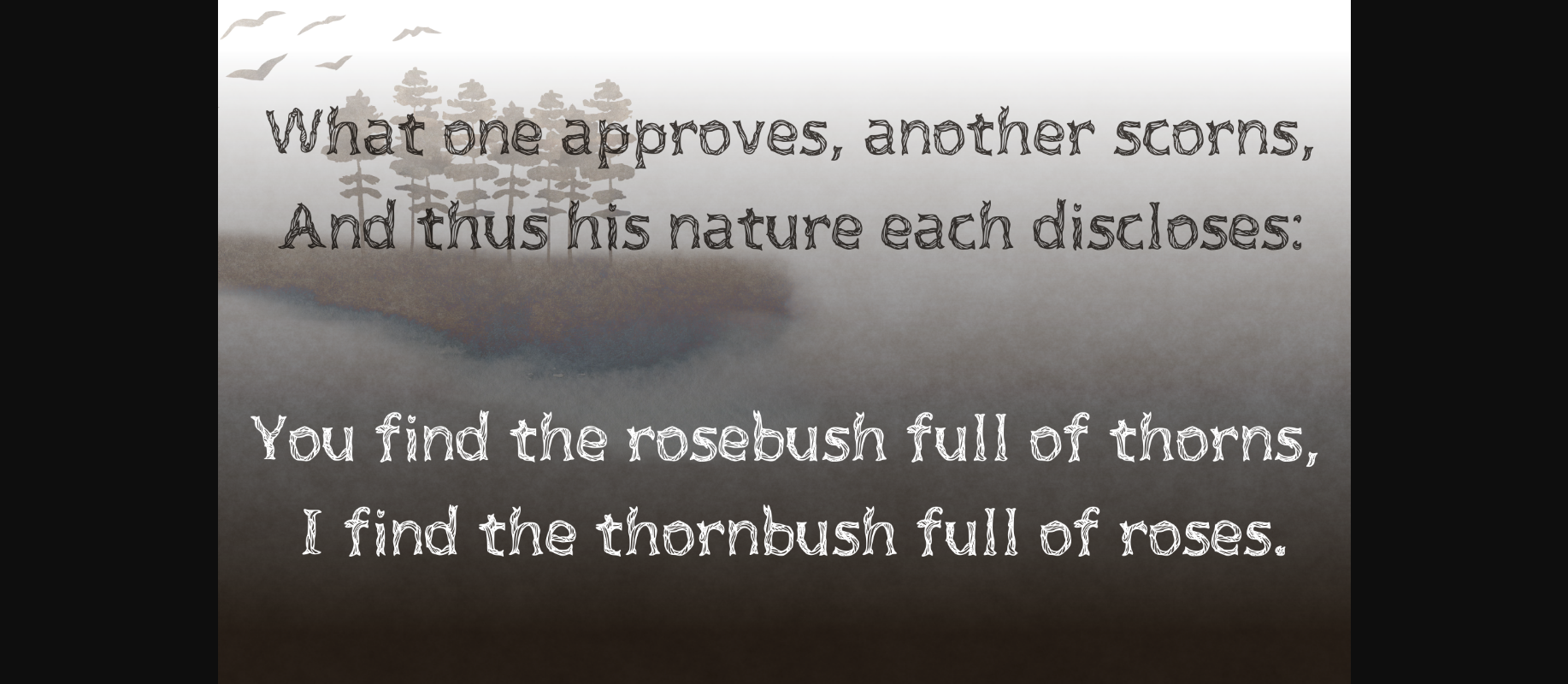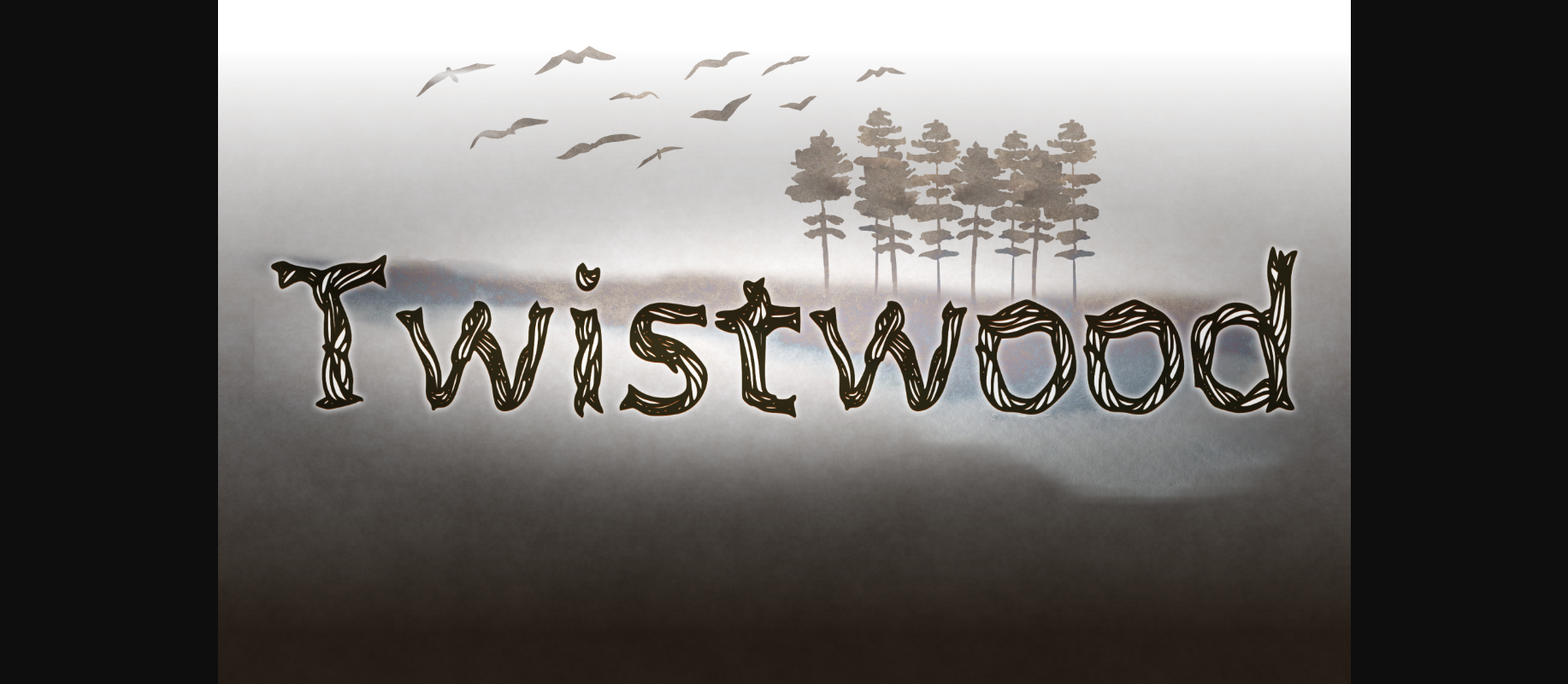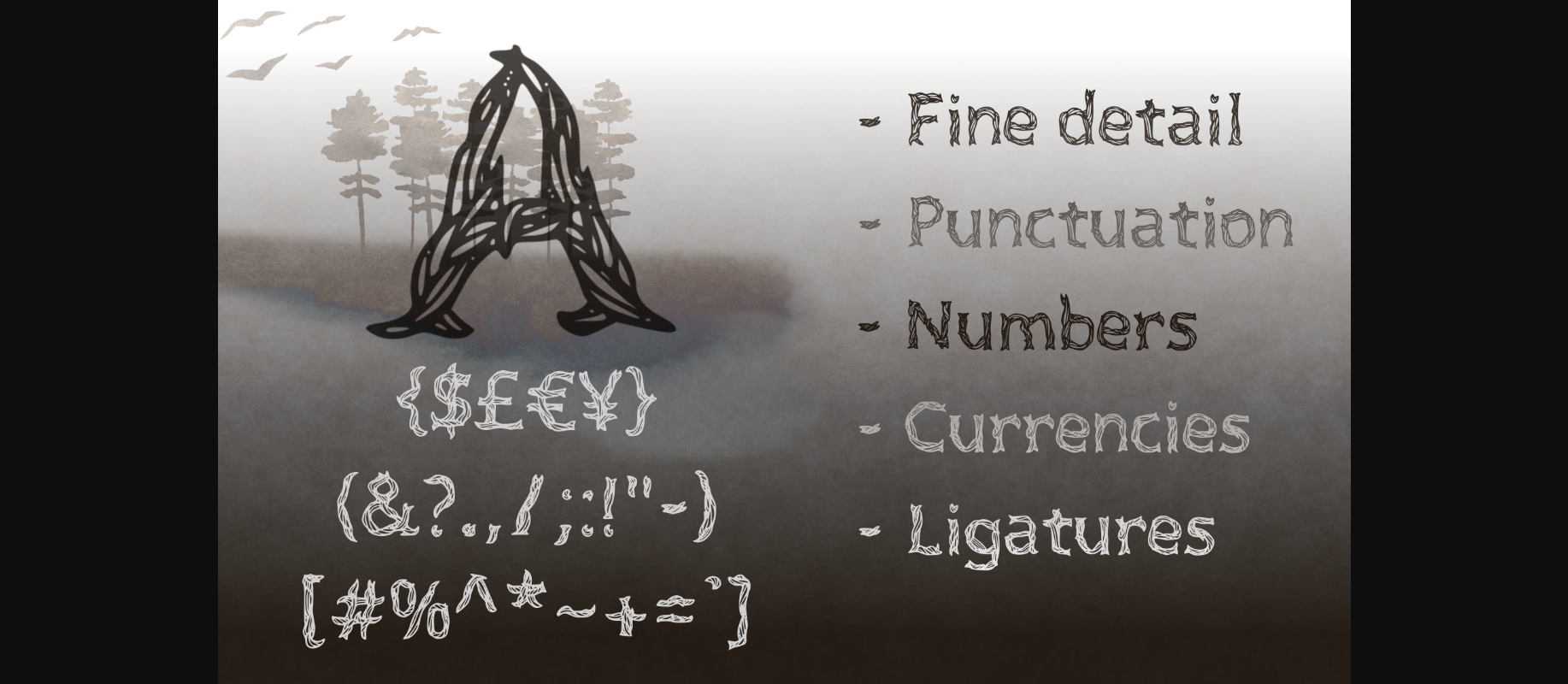
About Twistwood Font
Twistwood is a gorgeous handmade decorative font with several ligatures and unique characters. Its high detail at multiple line thicknesses mimics the twists of dry branches and leaves, making this an excellent font for projects related to forests, driftwood beaches, or other natural themes.